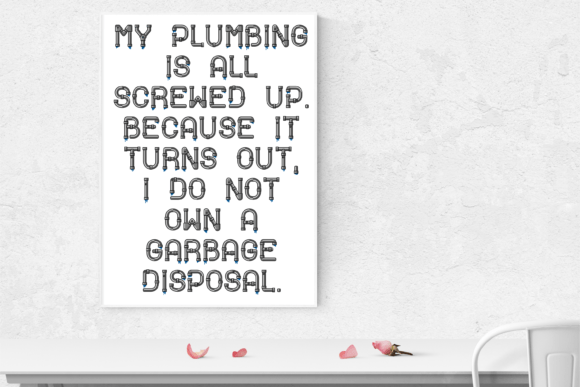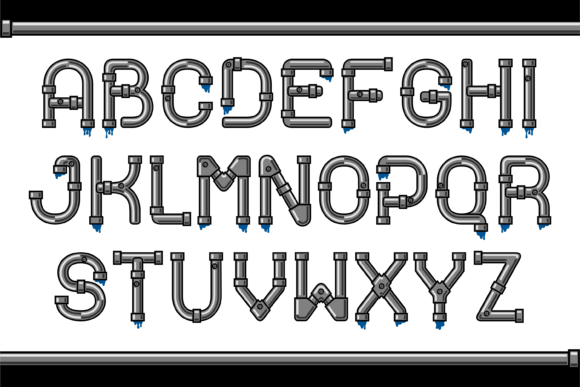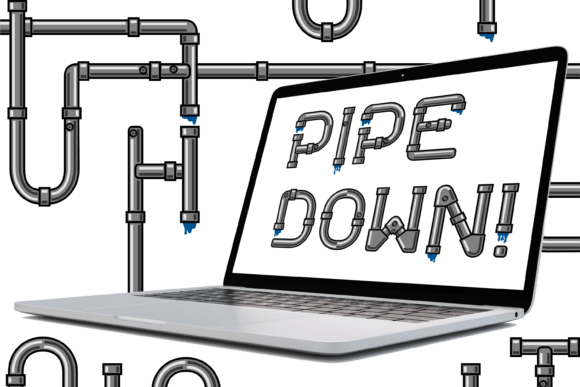
Pipeline Font
About Pipeline Font
The Pipeline font is a delightful and playful typeface that pays homage to the marvel of indoor plumbing. It celebrates the unsung heroes who provide clean water and modern hygiene to every home.
Designed in a cartoon style, Pipeline is a COLR/CPAL color font that mimics the appearance of colorful pipes. Its unique and whimsical design adds a touch of childlike exuberance to any project.
Whether you’re working on designs related to plumbing, water infrastructure, or simply want to inject a bit of vibrant and cheerful energy into your work, the Pipeline font is a perfect choice. It brings a sense of joy and playfulness to your typography, capturing the wonder and appreciation for the modern conveniences we often take for granted.
With its colorful pipes and charming aesthetics, the Pipeline font is sure to catch attention and create a memorable impression in your designs.